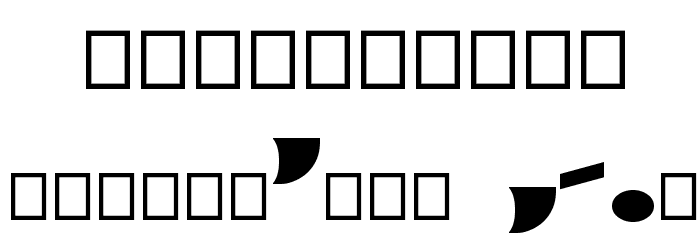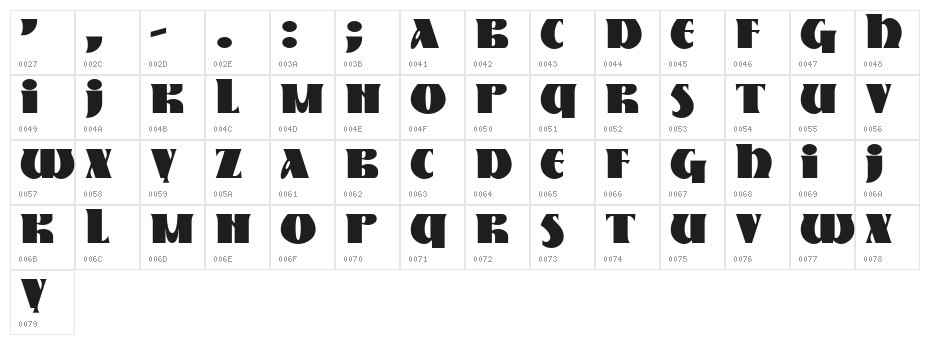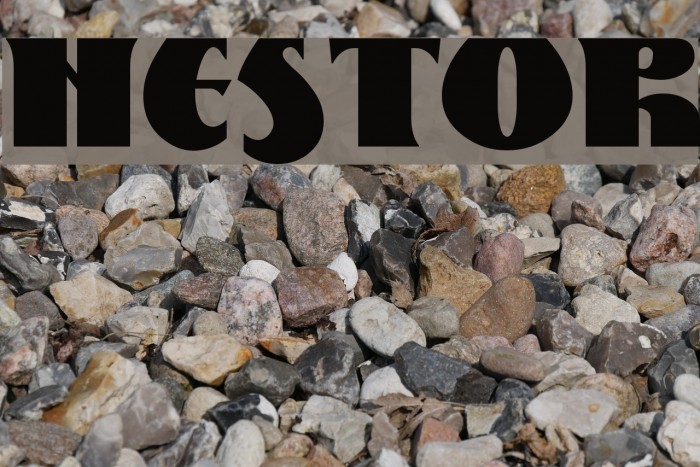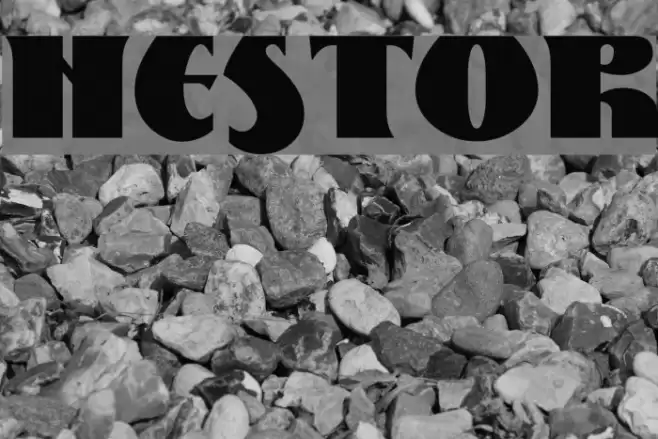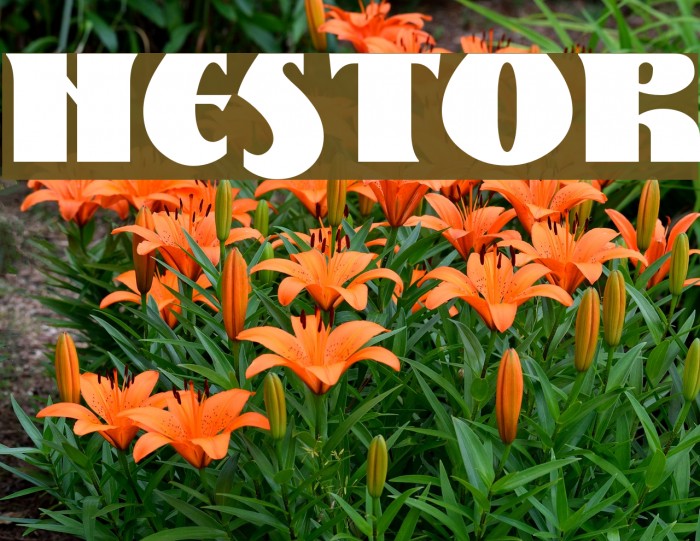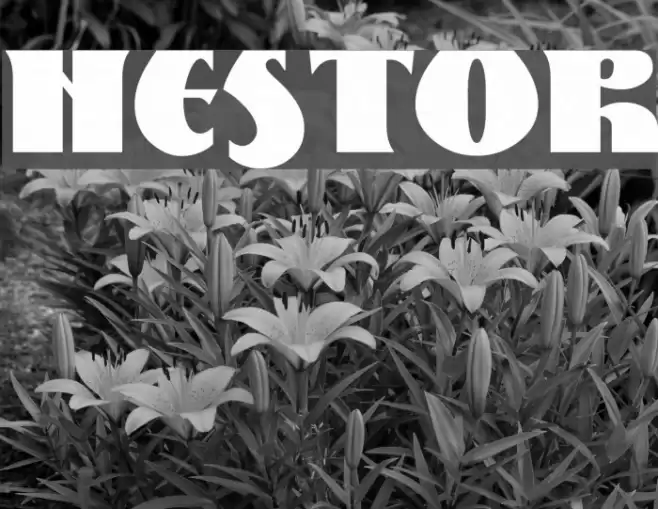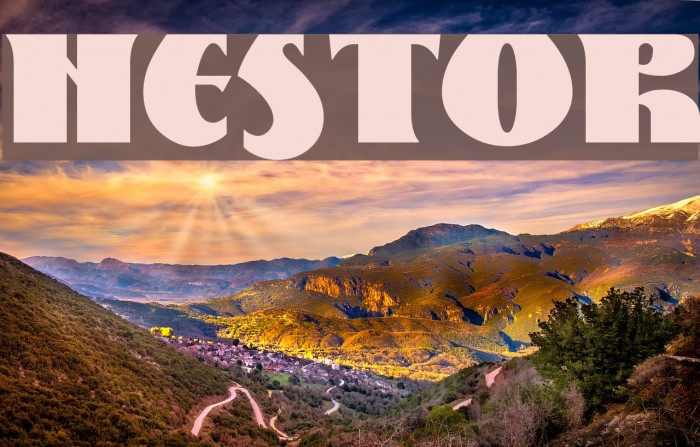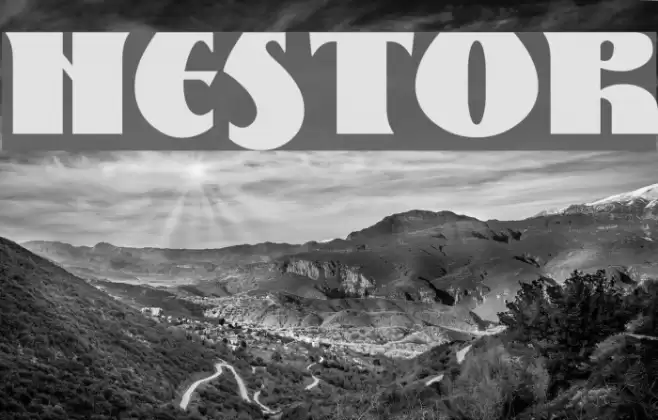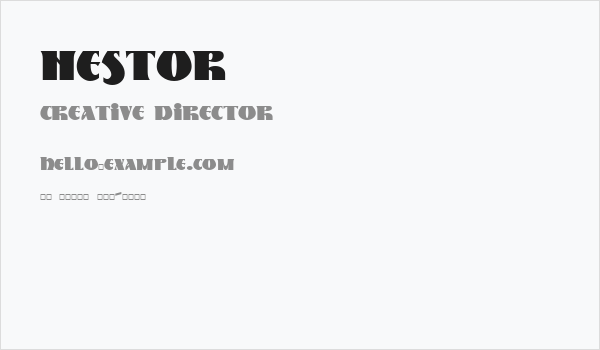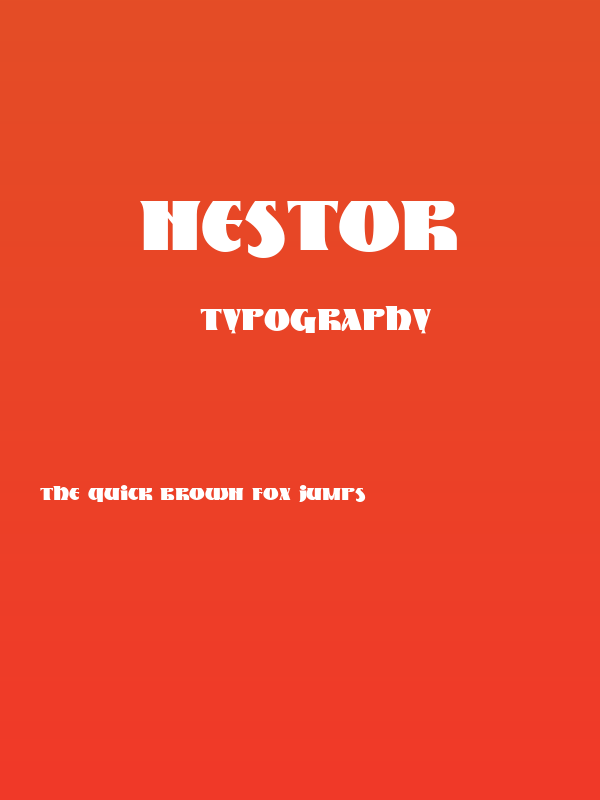
Nestor Font
Nestor Description
This font features a bold and striking design with a strong presence. The characters are crafted with thick strokes and a high contrast between thick and thin lines, giving it a dramatic and impactful appearance. The uppercase letters are particularly prominent, with a unique style that combines traditional serif elements with modern flair. The lowercase letters maintain the boldness, ensuring consistency across the typeface. The numbers and special characters are equally bold, making them stand out in any design. This font is ideal for creating eye-catching headlines, posters, and branding materials that require a strong visual impact.
| Proposed Projects | Perfect for posters, branding, headlines, and any project needing a strong visual impact. |